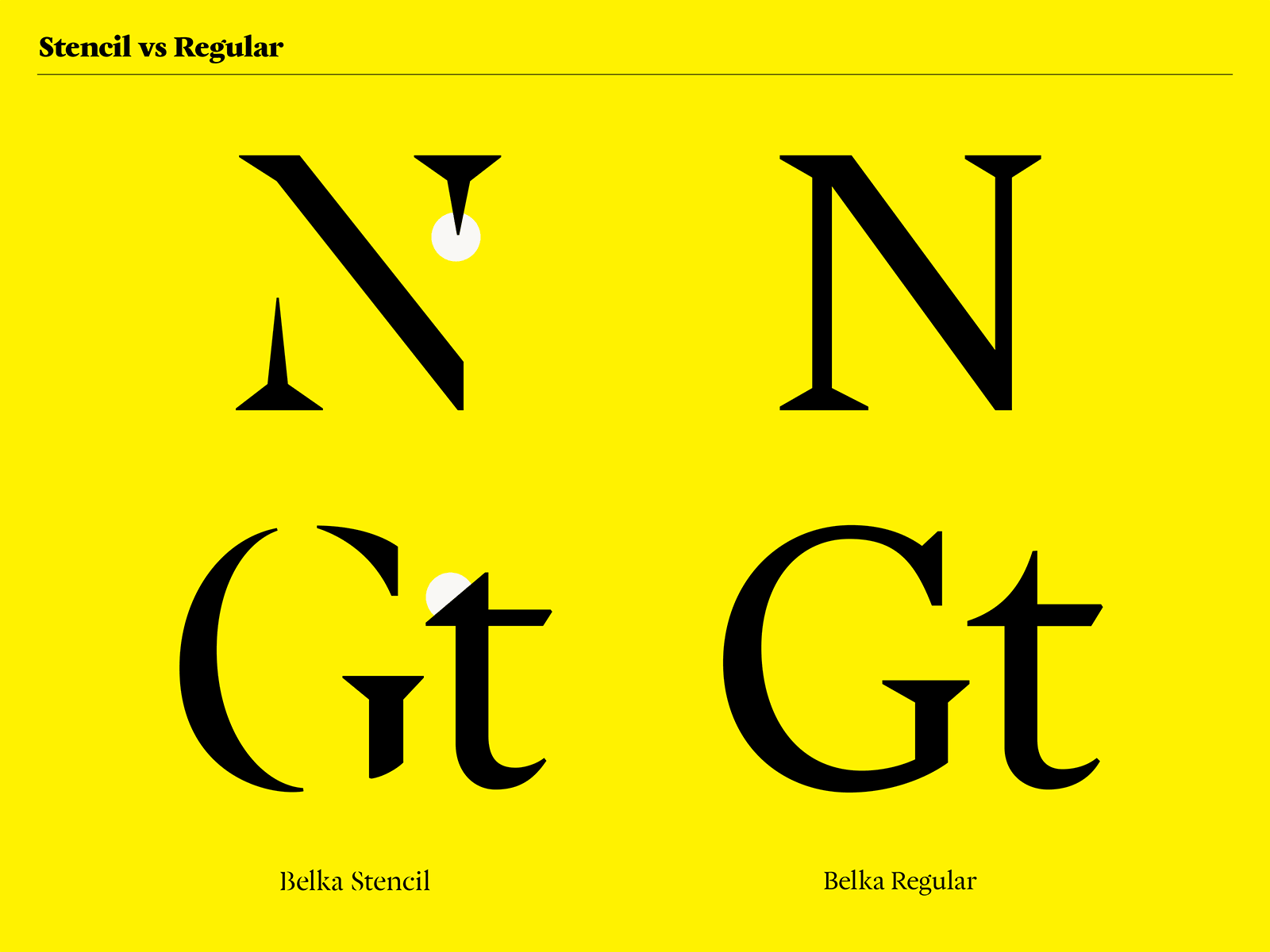
Belka
Belka is an elegant type family designed for editorial use. Based on the classic 18th century Caslon proportions, it is a contemporary redesign that is perfect for newspapers, magazines and digital media. Belka Regular & Belka Italic are neutral and will not distract the reader but the titling options like Belka Stencil or Belka Black have a very strong voice and, beside their main purpose, can also serve as design elements.
Belka Stencil is a logical contribution to the family because the Regular has openings on lowercase a, r, g, k, and uppercase P, R, B, K, Q and Ampersand which gives these letters a somewhat stencilled look. Belka Stencil features similar proportions to the regular but has higher contrast and more geometric feel. The serifs are larger and more triangular. Rounded terminals are a perfect circle. This link to pure geometry reinforces Belka’s contemporary look & feel. Belka Stencil is designed to be used in large, titling sizes only.
Belka Italic contributes to the visual richness of the family. It’s angularity and relatively small angle gives it a contemporary look and feel. The letter shapes are hugely inspired by the calligraphic model and thus contrast quite strongly with the Regular.
My research and design process at Type@Paris was a path of thorns. Before the first sketches of Belka were born, I had spent 2.5 weeks designing 3 other typefaces that ended up being useless. Before having settled on my final model I had digitized my first calligraphy sketches, which were rather low contrast, then made a high-contrast version of them, and to make matters worse (or better…) designed something in between. Only after a severe but incredibly useful intervention from Henrik Kubel did I settle onto something that looks similar to Belka’s final designs. From that day the direction was set in stone and it took another 2.5 weeks of hard work to create the family. Start with Belka Regular and design a character set that includes ligatures, lining and non-ligning figures and basic punctuation. Then create Belka Black to be able to interpolate and get 3 additional weights – Semibold, Bold & Heavy. Design Belka Stencil and finally Belka Italic.
I feel like the real strength of Belka family is its richness and how its different parts work together to create numerous design possibilities and give text layouts exciting textures for a broad variety of media.